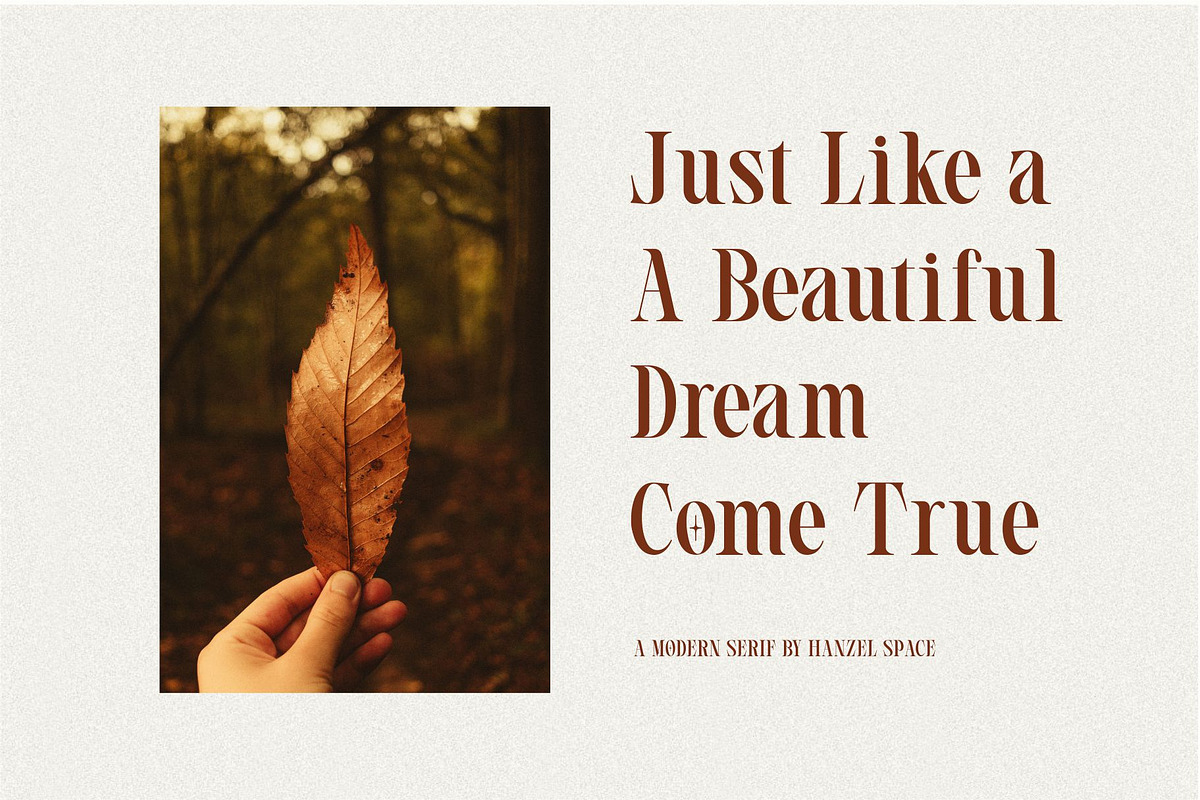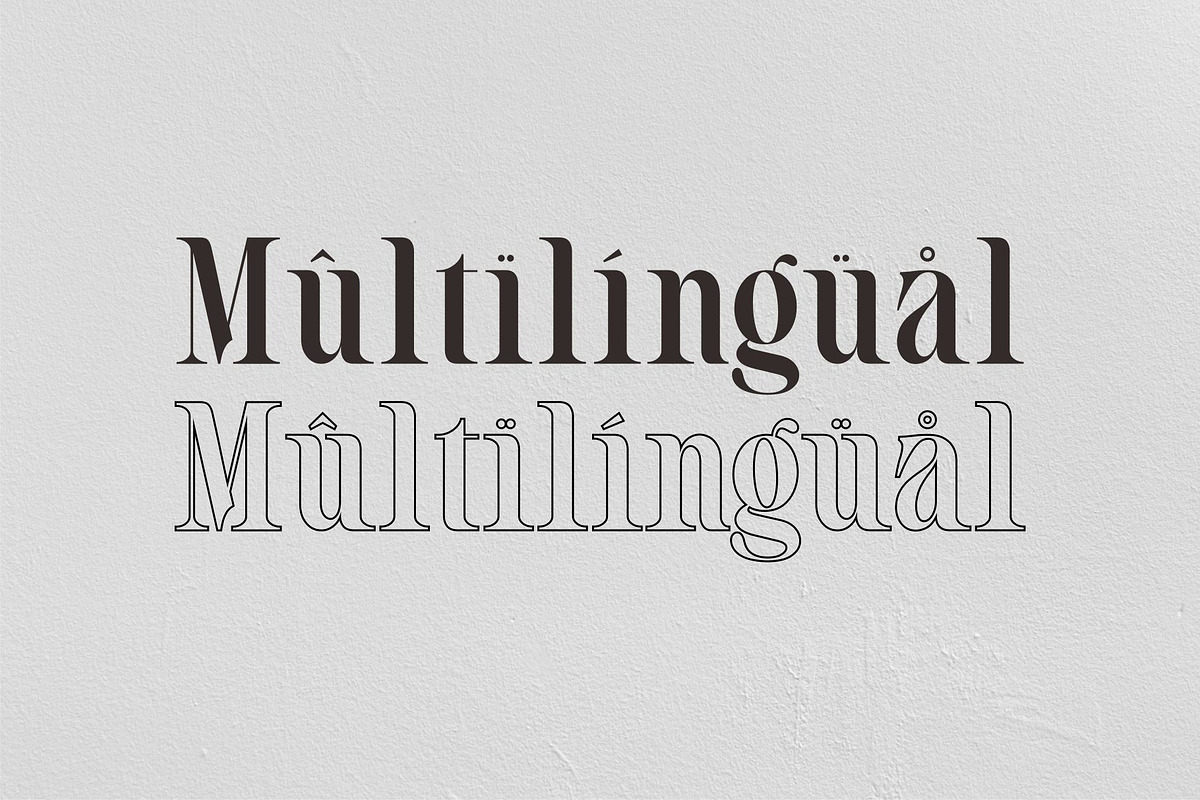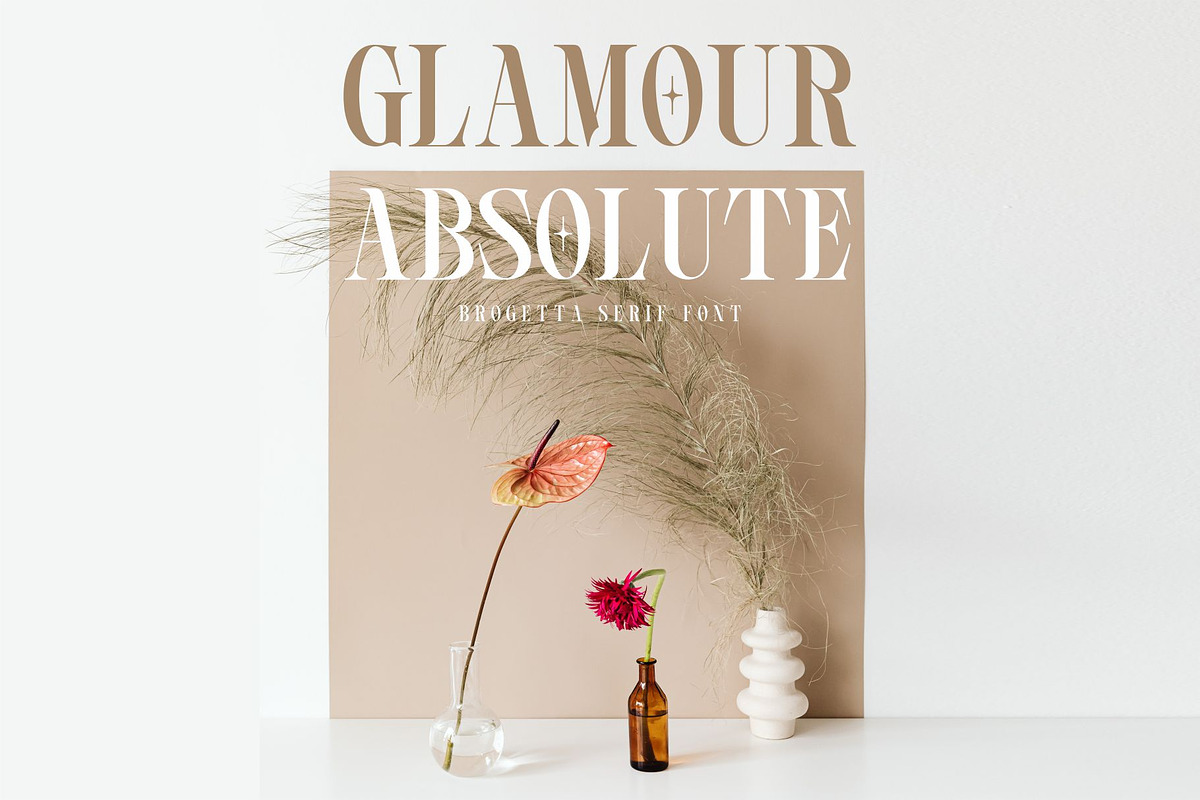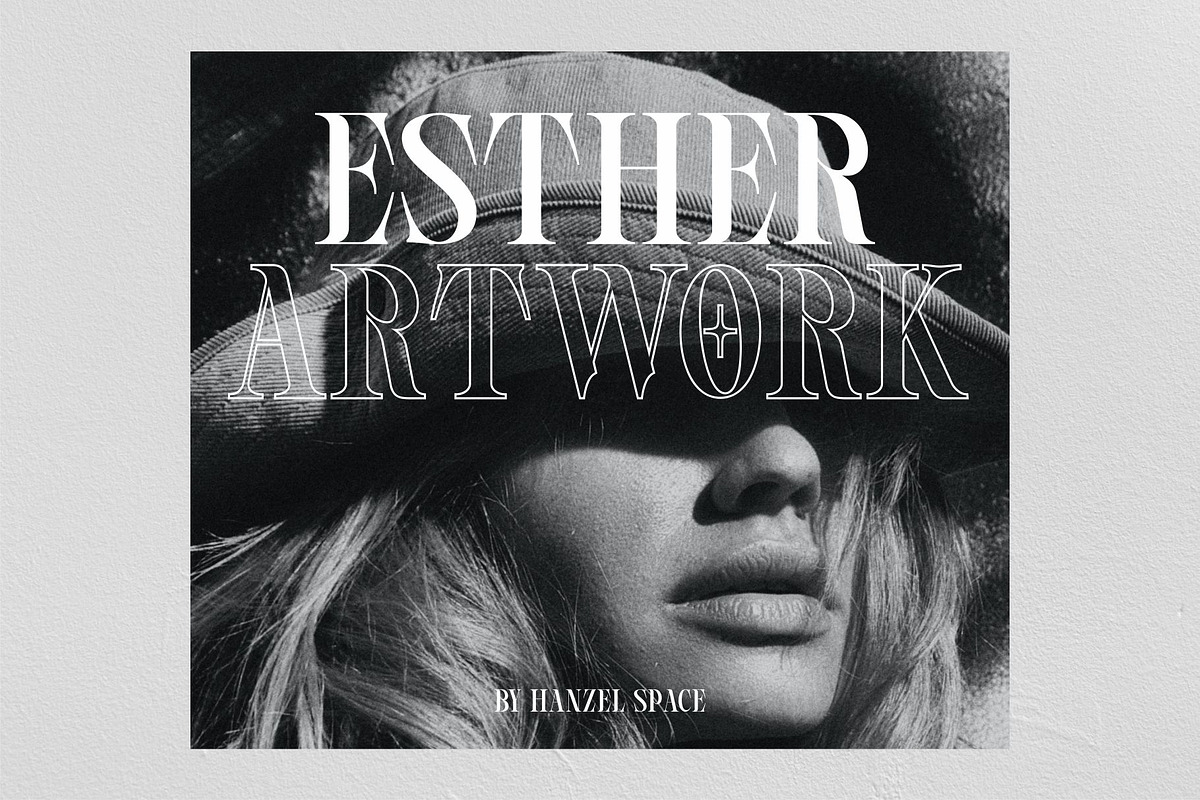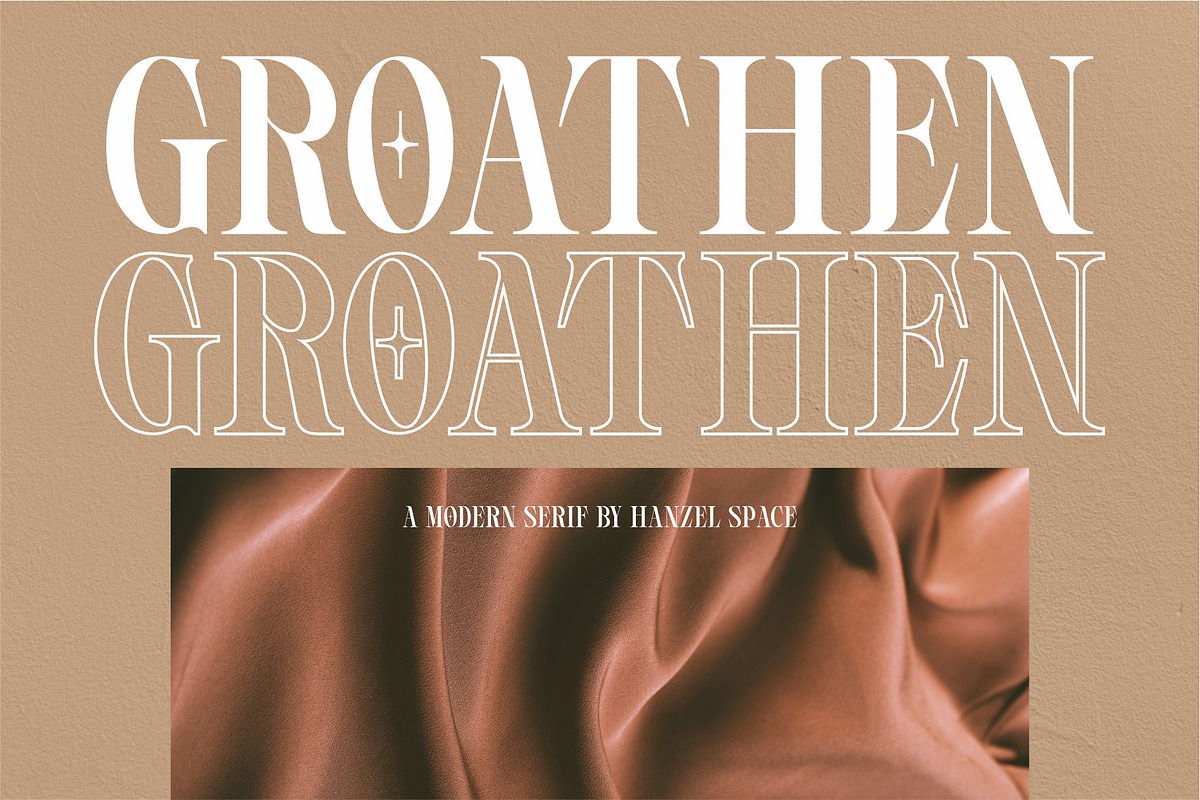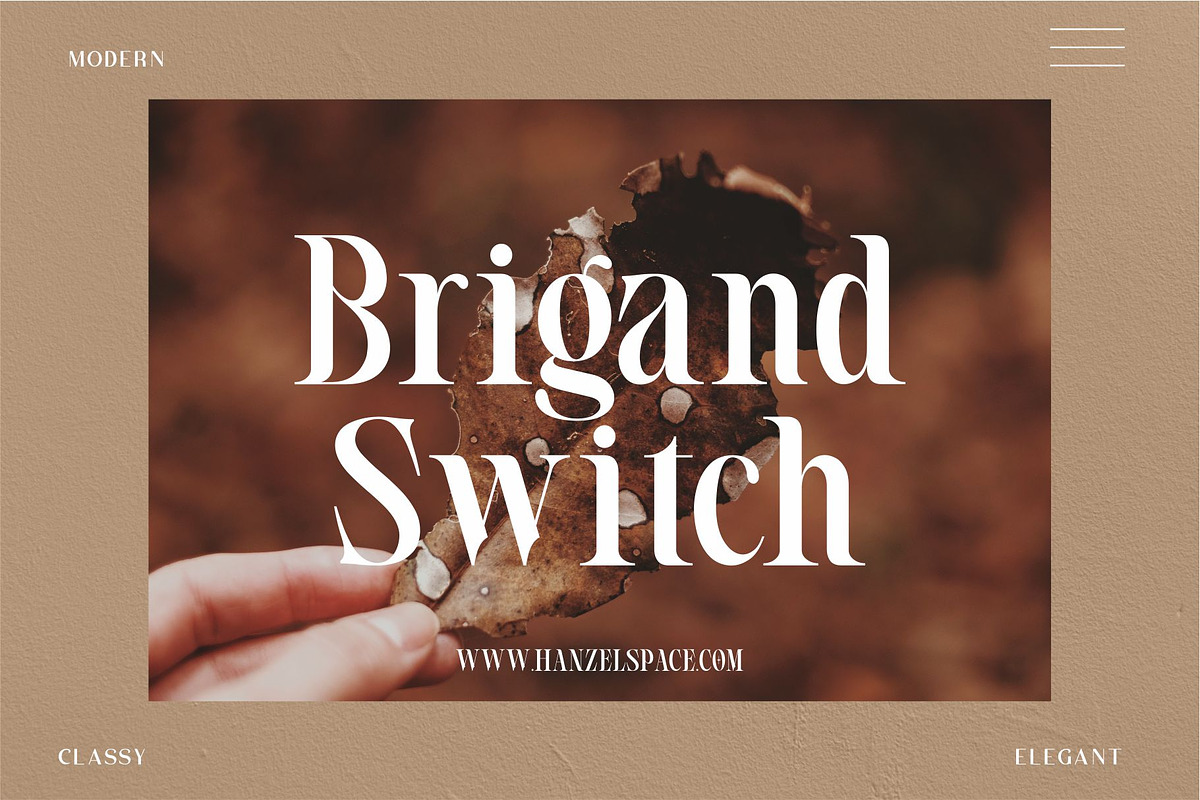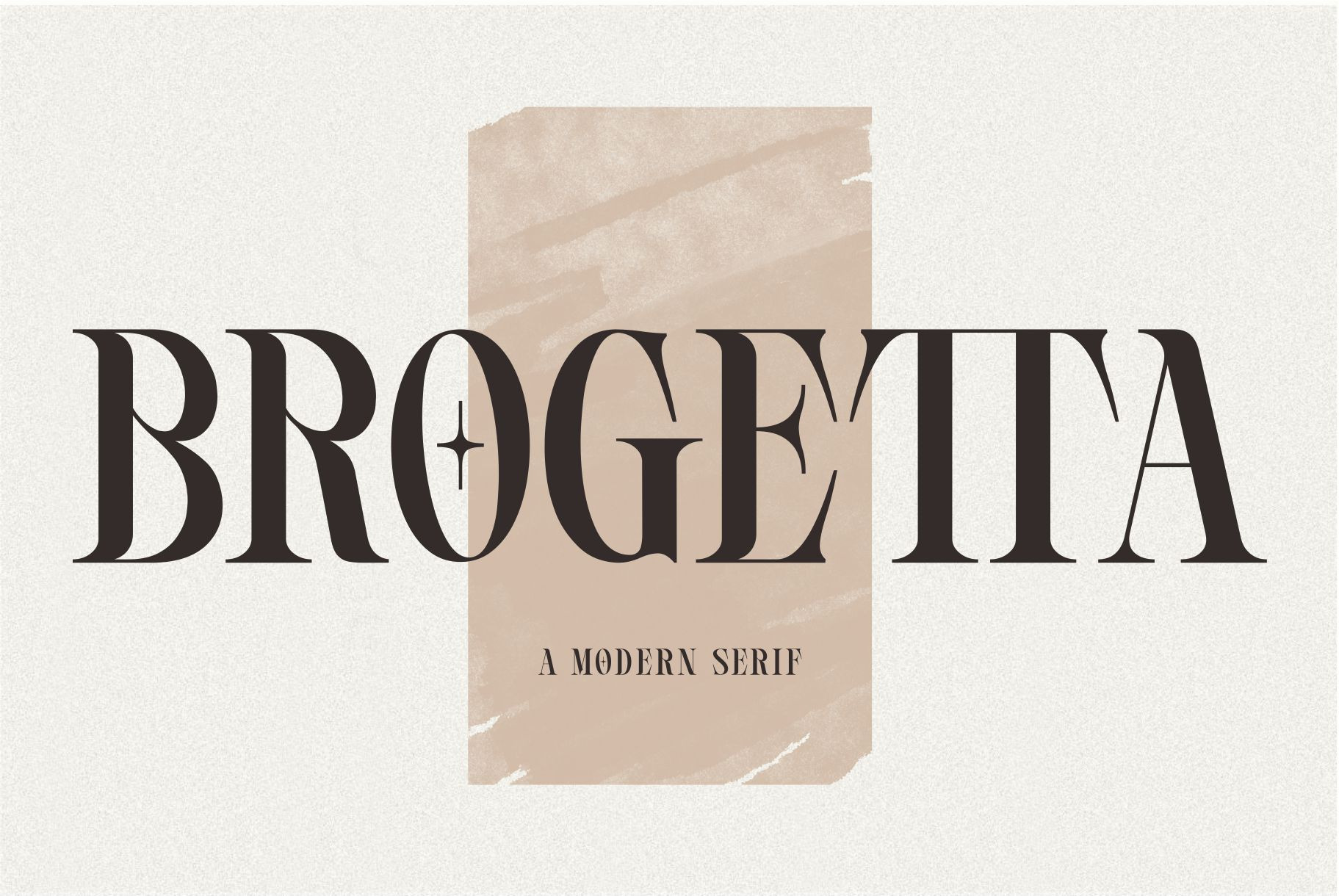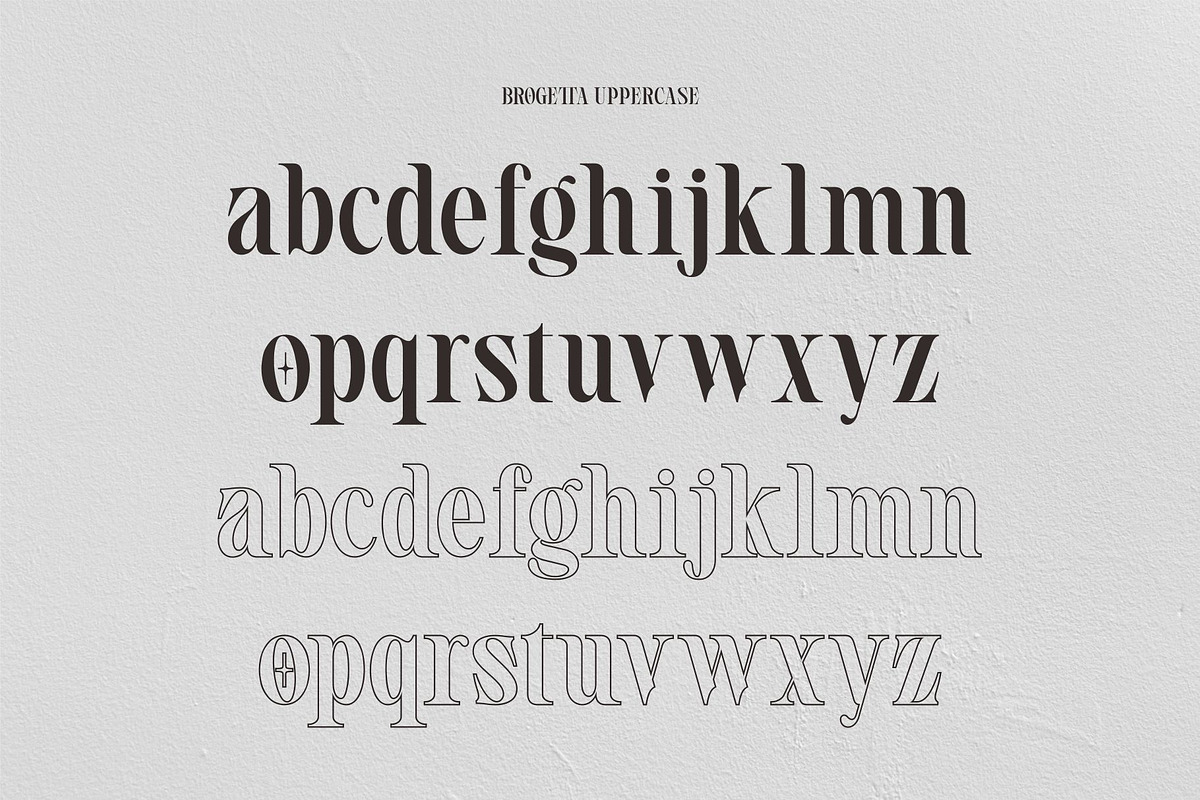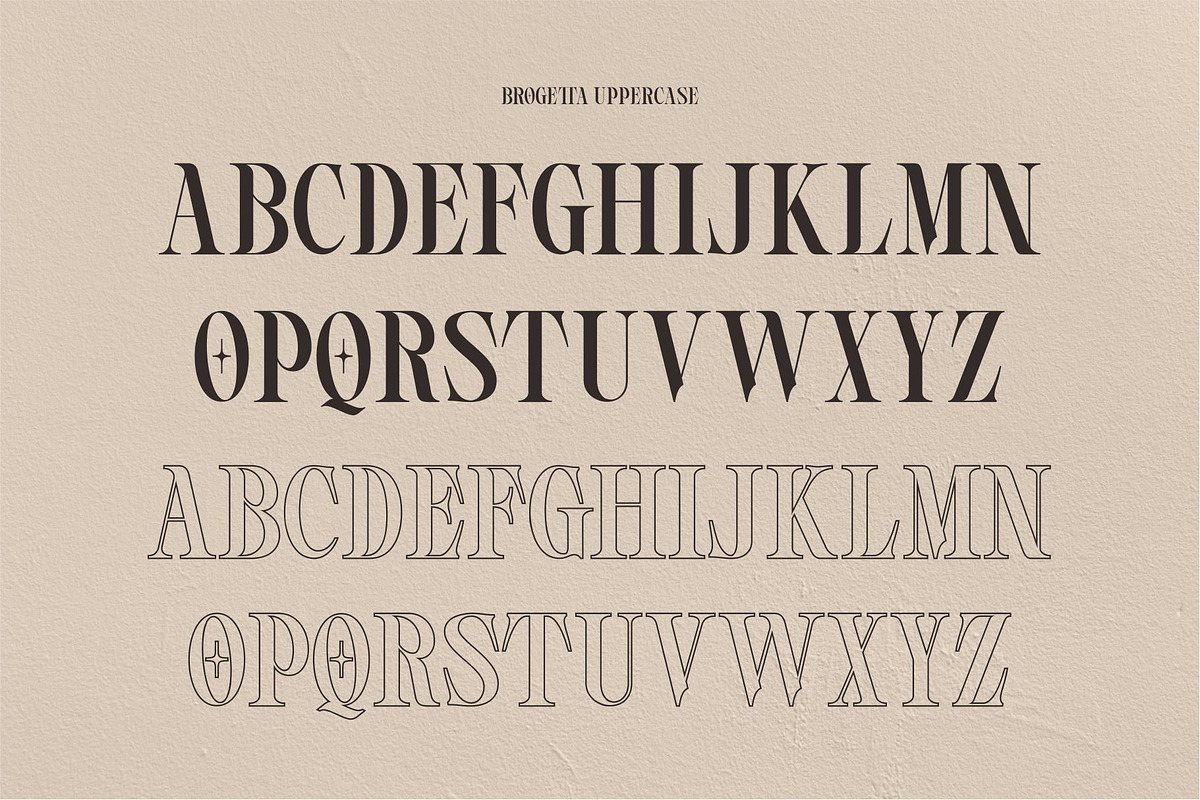
BROGETTA - Modern Serif Font
BROGETTA is a modern serif font.
BROGETTA will perfect for many project: fashion, magazines, logo, branding, photography, invitations, wedding invitation, quotes, blog header, poster, advertisements, postcard, book, websites, etc.